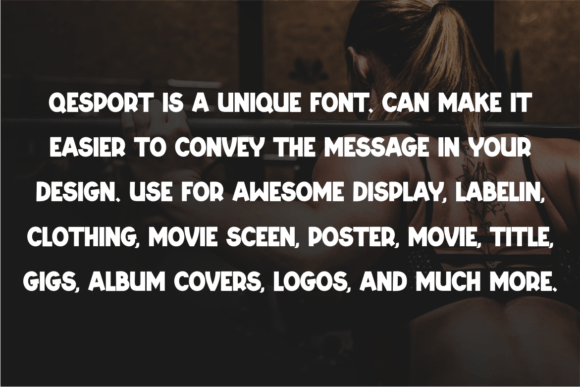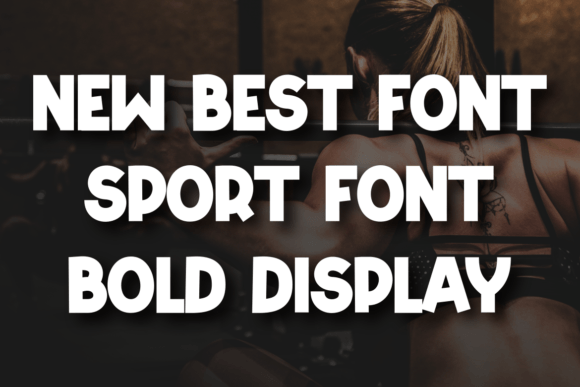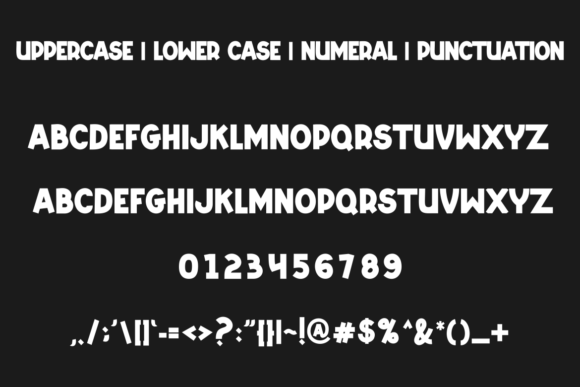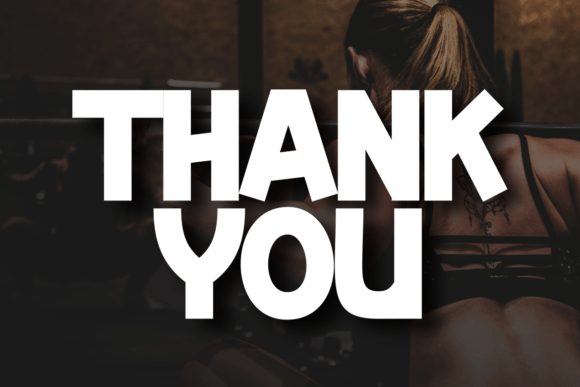
Introduction to Qesport Font
Remember the moment when a single design element clicked into place, elevating your entire project? For many of us, it’s a rush of excitement and a sense of accomplishment. For designers, it’s often about finding the perfect font to bring their vision to life. And that’s where the Qesport Font comes in – a high-quality, bold, and assertive sans serif font that’s about to become your new go-to design resource.
Whether you’re working on a logo, a brochure, or a website, the Qesport Font has the potential to elevate any creative project. With its transparent background and sleek design, it’s the perfect addition to any designer’s library. And the best part? You can download it for free, making it an invaluable resource for designers on a budget.
Key Features of Qesport Font
- High-quality typography: Qesport Font is designed with precision and attention to detail, making it a valuable design resource for creative projects.
- Transparent background: This feature allows for seamless integration with various backgrounds, giving designers the flexibility they need to create visually appealing designs.
- Large character set: Qesport Font includes a vast character set, covering multiple languages and scripts, making it an ideal choice for international design projects.
- Resolution: Qesport Font is designed to be scalable, with a resolution of up to 300 DPI, ensuring crisp and clear typography even at larger sizes.
- Perfect for digital and print projects: Qesport Font is suitable for a wide range of creative projects, including digital designs, print materials, and more.
Honest Review: Qesport Font
I recently stumbled upon the Qesport Font, a design resource that caught my attention with its unique and modern aesthetic. The high quality of this font is evident in its crisp lines and clean typography, making it perfect for creative projects that require a touch of sophistication.
The Qesport Font features a transparent background, allowing it to seamlessly integrate with any design. This versatility is a major advantage, as it can be used in a wide range of applications, from print materials to digital interfaces.
What works well about the Qesport Font is its:
- ✨ Clean and modern design aesthetic
- ✨ High-quality typography
- ✨ Versatility in usage
- ⚠️ Limited font weight options
- ⚠️ May not be suitable for very small text sizes
Overall, I’m impressed with the Qesport Font. Its unique design and high quality make it a valuable addition to any design resource library. While it may have some limitations, it’s a great option for creative projects that require a modern and sophisticated look.
Tips for Getting the Most Out of Qesport Font
Experiment with different font sizes and colors to create visually appealing designs. Use the font’s transparent background feature to create unique and eye-catching effects. Combine Qesport Font with other design elements to create a cohesive and high-quality design.
Qesport Font is perfect for designing creative projects such as brochures, posters, and social media graphics. Its high-quality design and transparent background feature make it ideal for use in a variety of design applications.